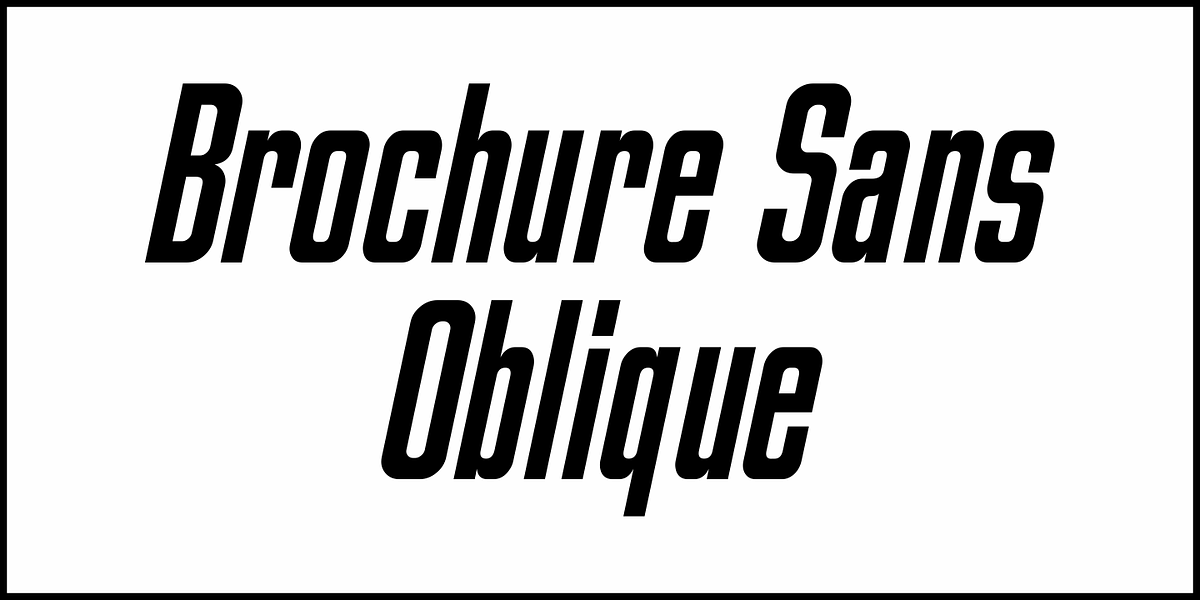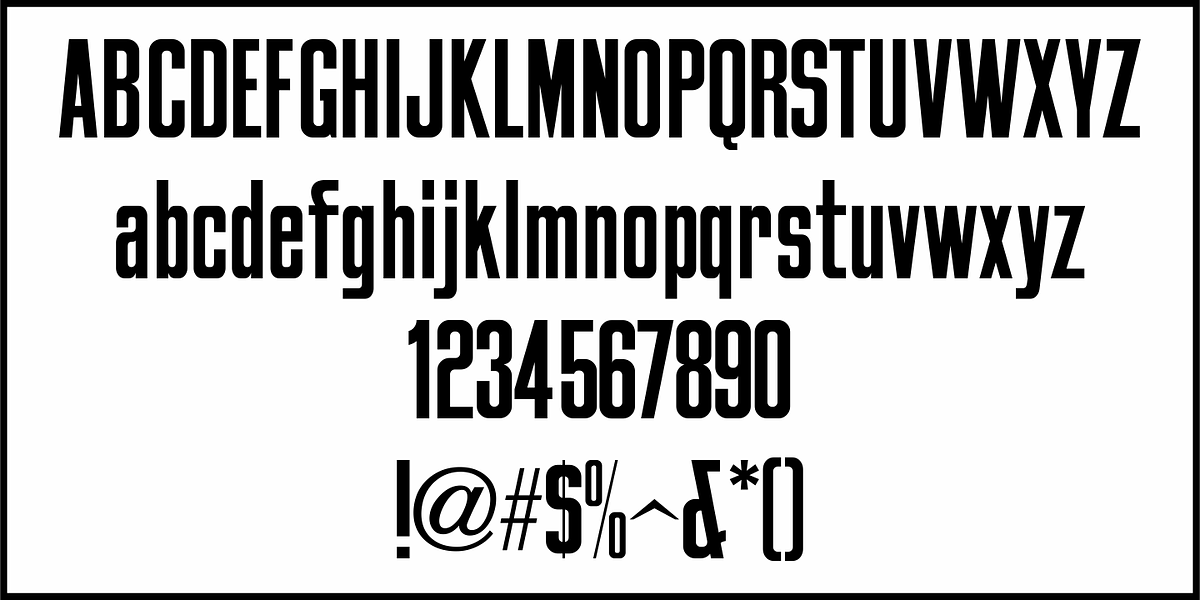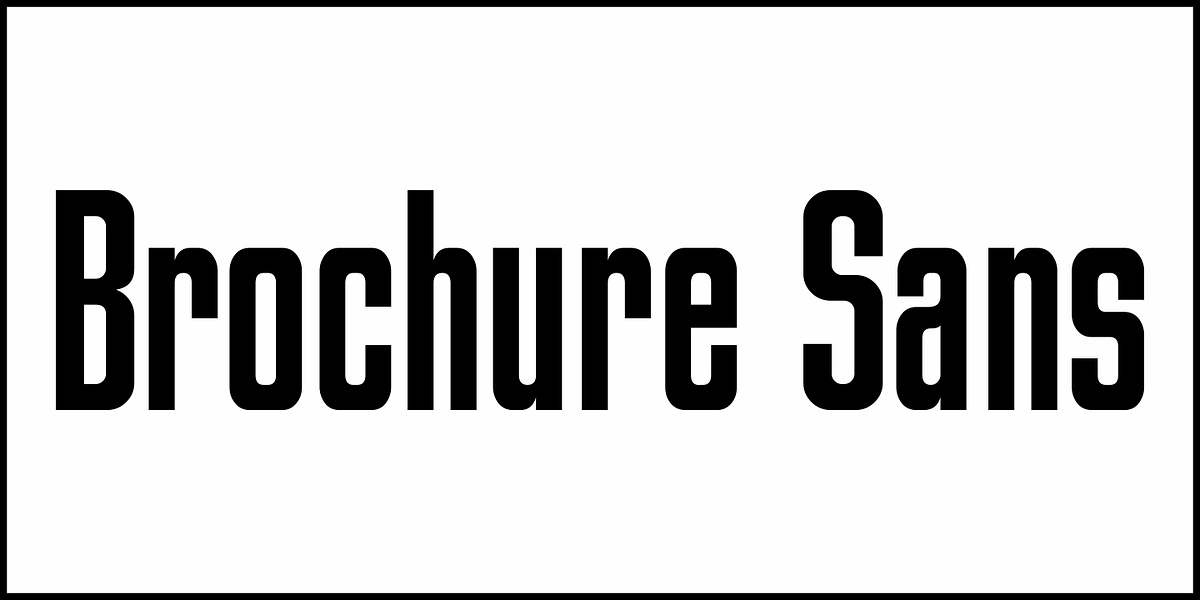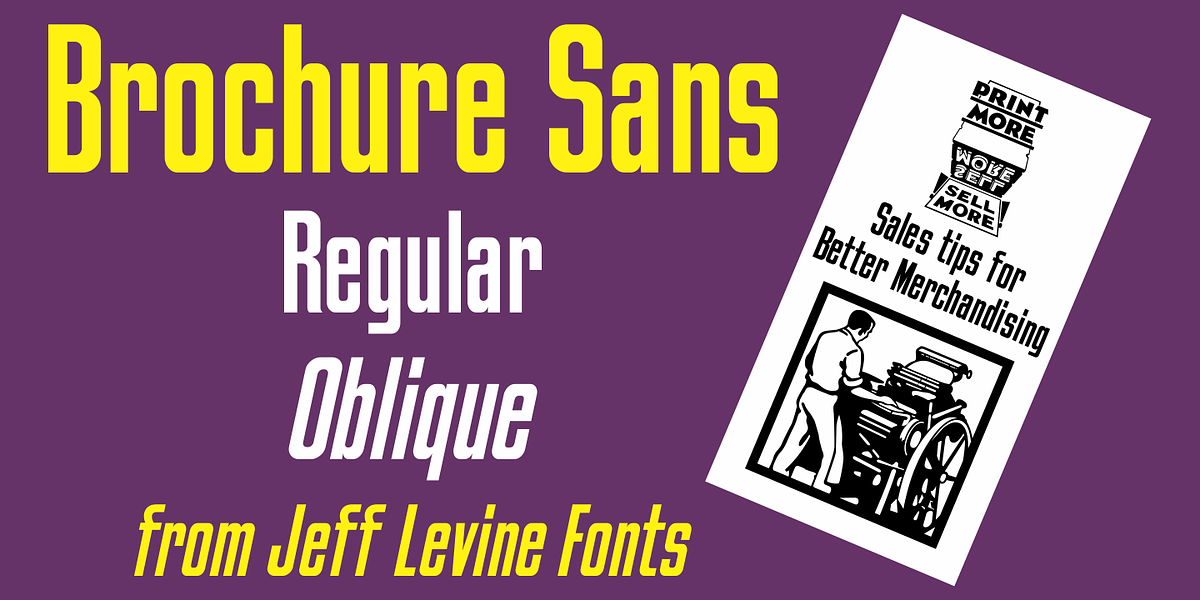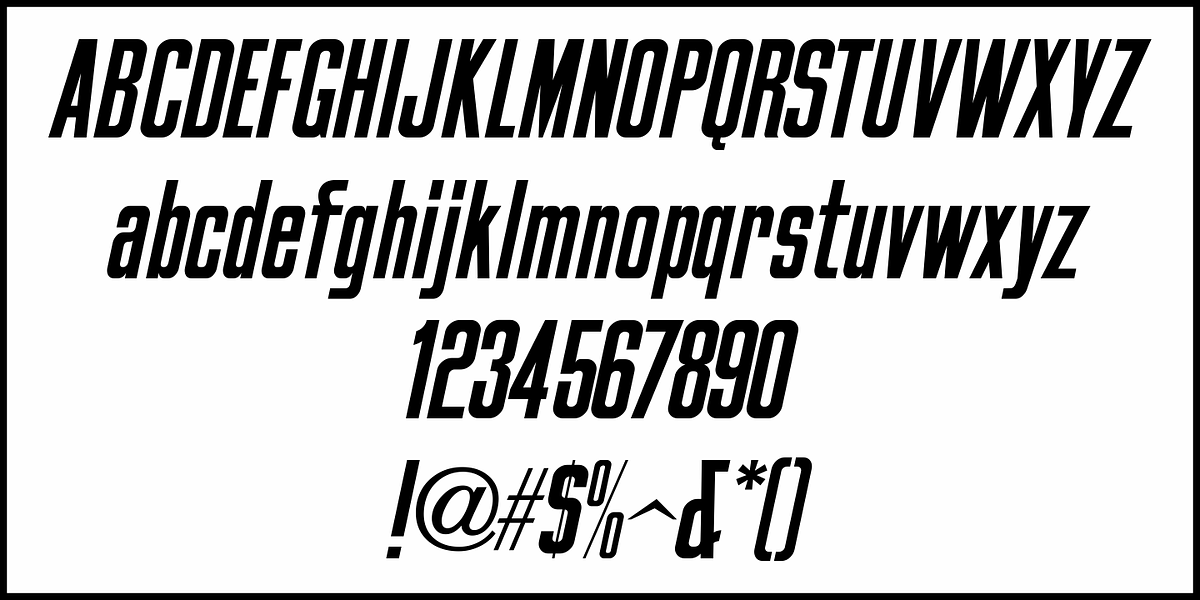
Brochure Sans JNL
Brochure Sans JNL is based on Sans Serif No.7 from the 1921 Miller & Richard type specimen book, and is available in both regular and oblique versions.